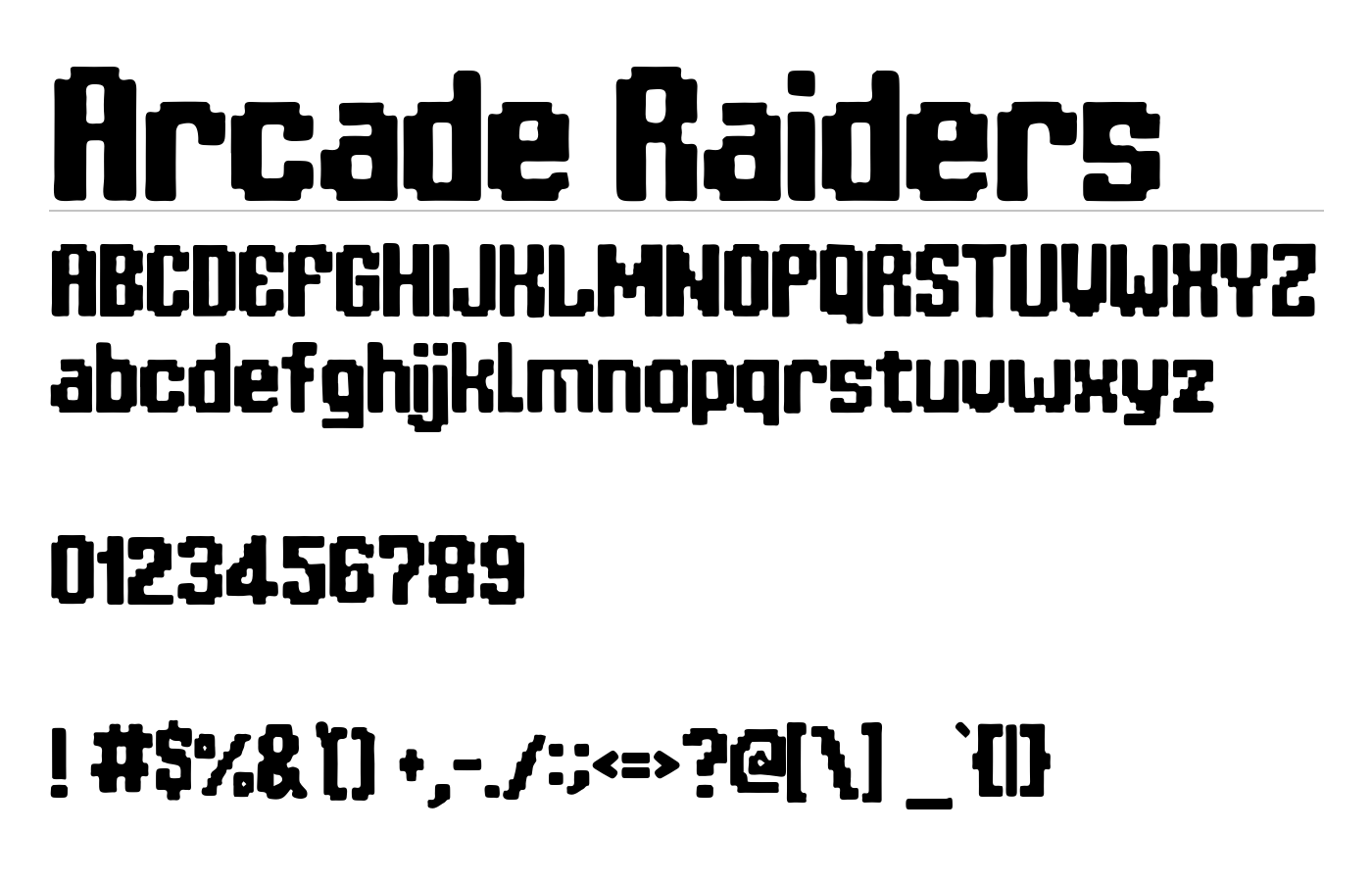
Arcade Raiders is a bold, condensed sans serif font with a pixelated, blocky aesthetic that evokes classic 8-bit video game style. Its heavy weight and uniform stroke width give it a strong, retro-futuristic personality, perfect for playful, nostalgic designs in gaming, tech, or youth-focused branding. This font works best in headlines, logos, and posters where its distinctive vintage arcade vibe can stand out clearly.
Arcade Raiders Font
About Arcade Raiders Font